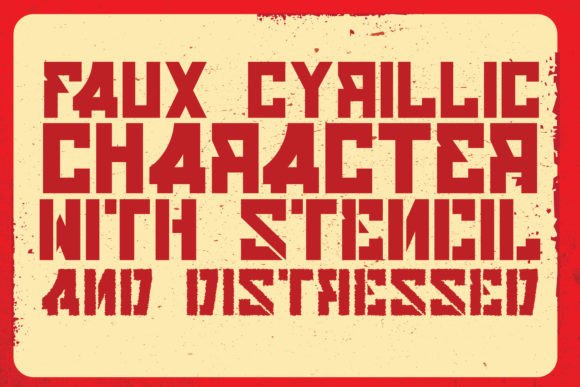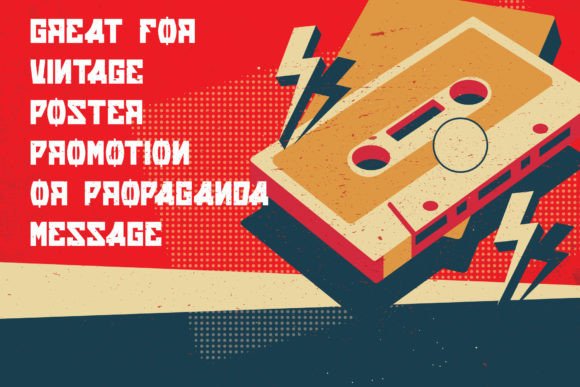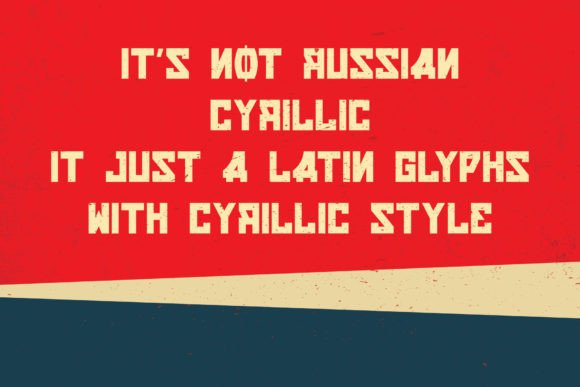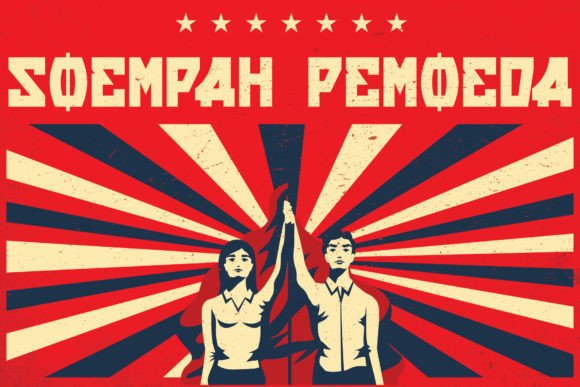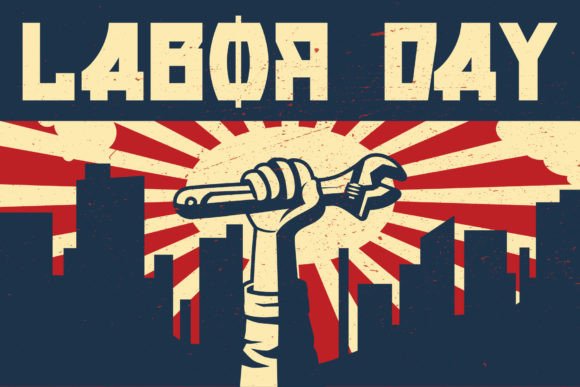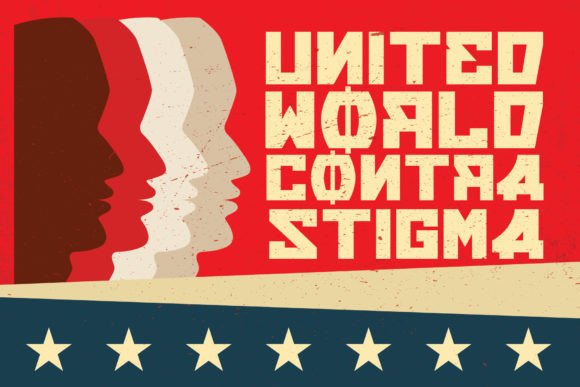
The Hunt for the Perfect Font: Discovering Anuschka
I still remember the design project that led me to Anuschka. I was working on a book cover for a historical fiction novel set in Soviet Russia, and I was struggling to find a font that captured the essence of that era. The client wanted something that would evoke the Soviet Union’s nostalgic and vintage vibe, but I was coming up blank. That’s when I stumbled upon Anuschka, a cool, faux Cyrillic display font that instantly caught my attention.
An Honest Review of Anuschka Font
So, what makes Anuschka so special? Here are some things I love about this font:
- ✨ Unique and distinctive style that evokes the Soviet Union or Russia
- ✅ Perfect for book covers, film titles, comic books, artworks, or anything that needs a vintage, Eastern European vibe
- 💥 Highly legible, even at large sizes
- 🎨 Great for creative projects that need a bold, eye-catching font
Of course, no font is perfect, and Anuschka has a few quirks:
- 🤔 Limited character set, which may not be suitable for projects that require a wide range of characters
- ⚠️ May not be the best choice for body text, as it’s quite bold and attention-grabbing
The Story Behind Anuschka Font
Anuschka font was designed with the intention of capturing the essence of Soviet Russia’s nostalgic and vintage vibe. The designer aimed to create a font that would evoke the era’s industrial and architectural styles, while also being highly legible and versatile.
| Font Name | Anuschka Font |
| Author | anomali.bisu |
| What is Anuschka font best used for? | Anuschka font is best used for book covers, film titles, comic books, artworks, or anything that needs a vintage, Eastern European vibe. |
| Is Anuschka font suitable for body text? | No, Anuschka font is quite bold and attention-grabbing, making it more suitable for headlines and titles rather than body text. |
| Is Anuschka font available in different languages? | Anuschka font supports the Latin and Cyrillic alphabets, making it suitable for projects that require Eastern European languages. |